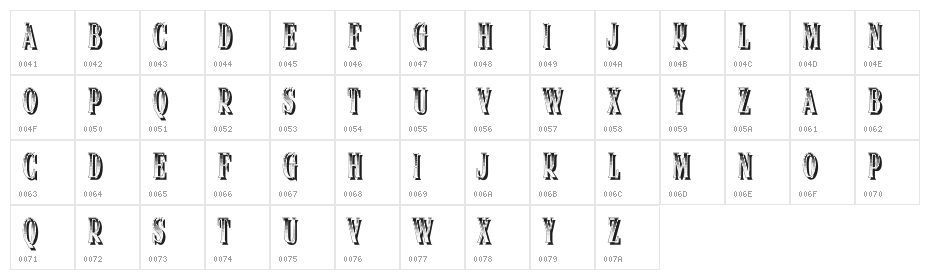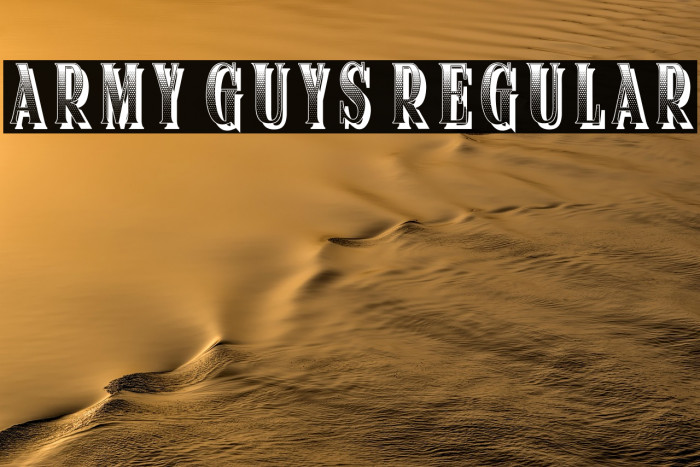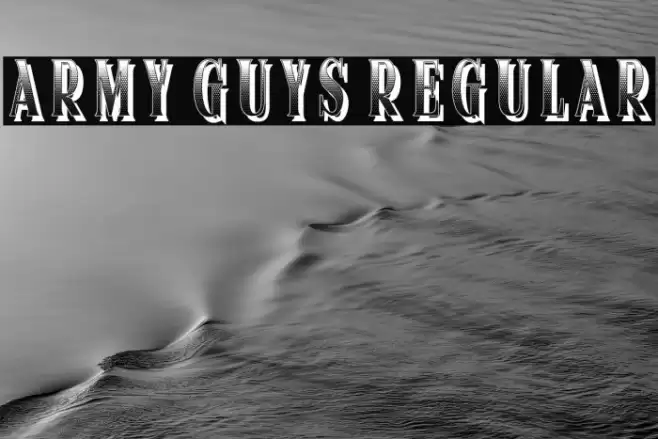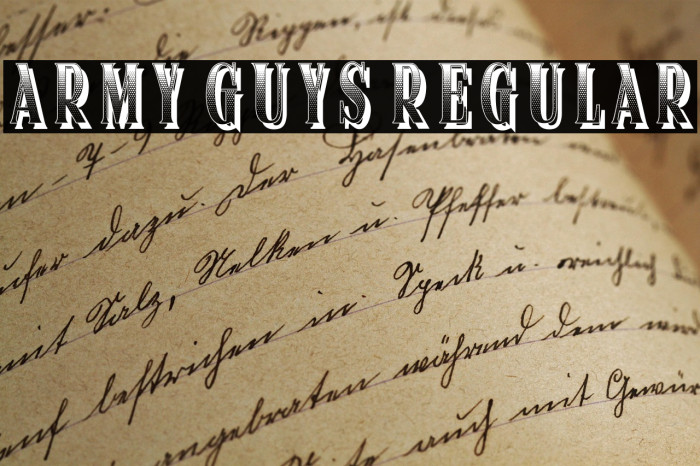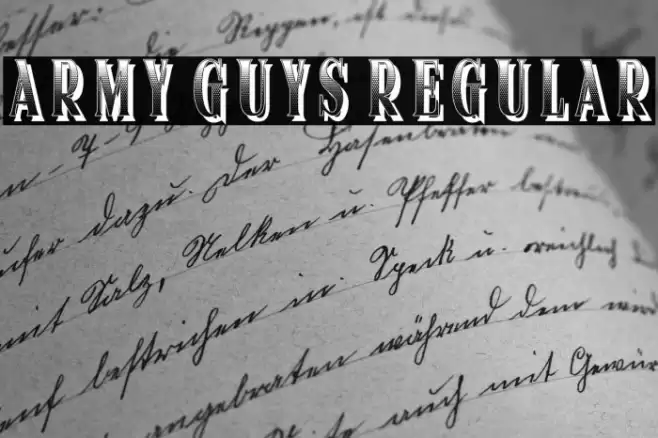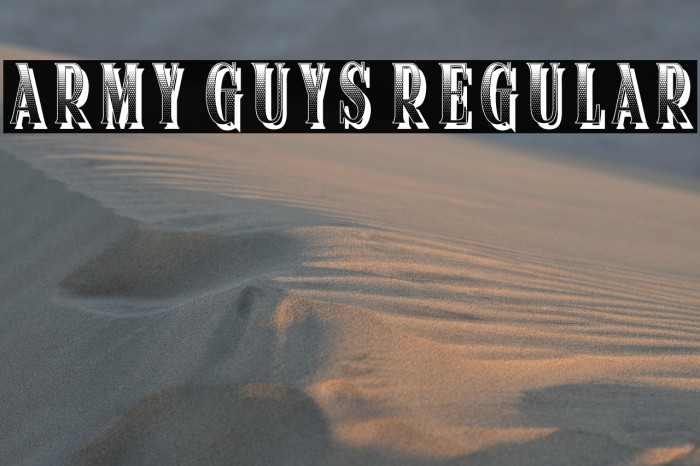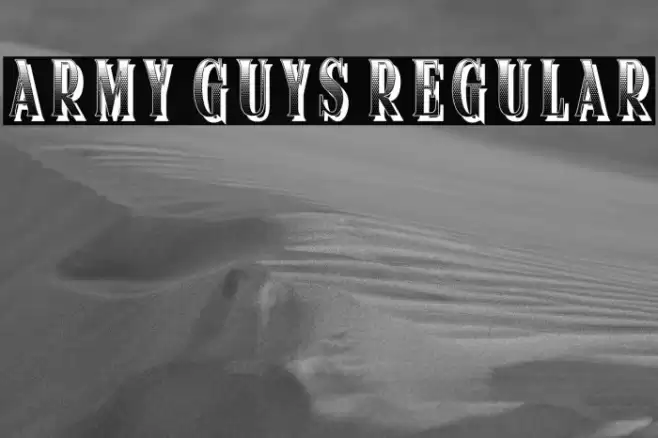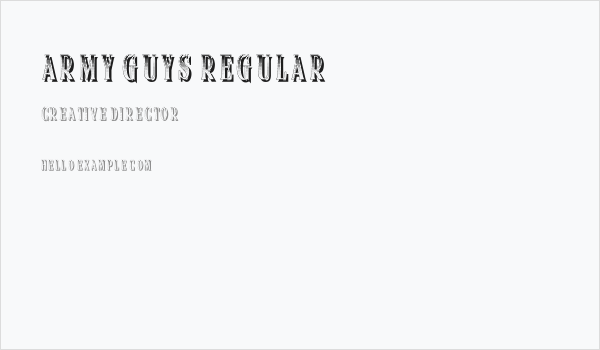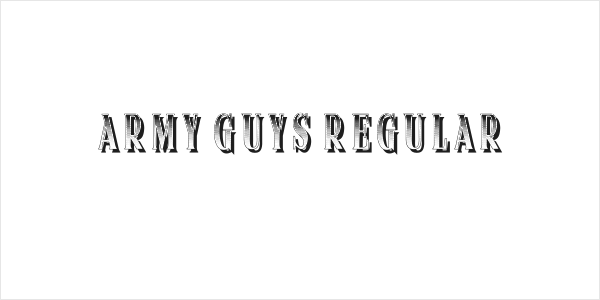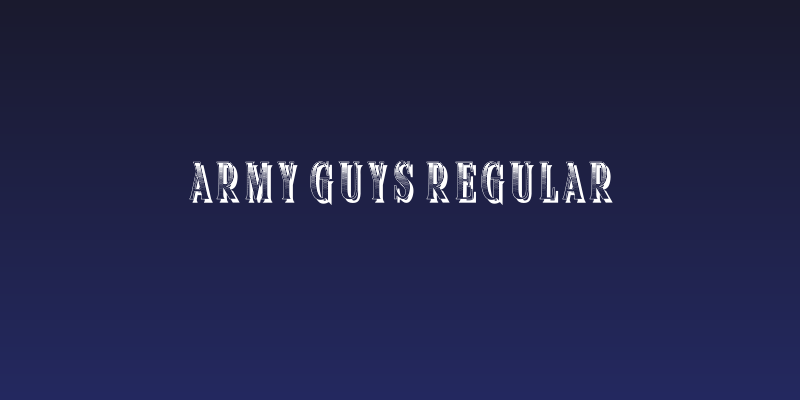
Army Guys Regular Font
Army Guys Regular Description
This font features a bold and decorative style with a strong presence. Each character is designed with a three-dimensional effect, giving it a shadowed appearance that adds depth and interest. The letters are uppercase and have a vintage military aesthetic, reminiscent of classic army stencil designs. The intricate detailing within each letter, including inner patterns and outlines, enhances its visual appeal. This font is ideal for projects that require a commanding and authoritative look, such as posters, banners, or themed event materials.
Overall StyleVintage
Proposed ProjectsIdeal for military-themed posters, banners, event materials, and vintage-style designs.